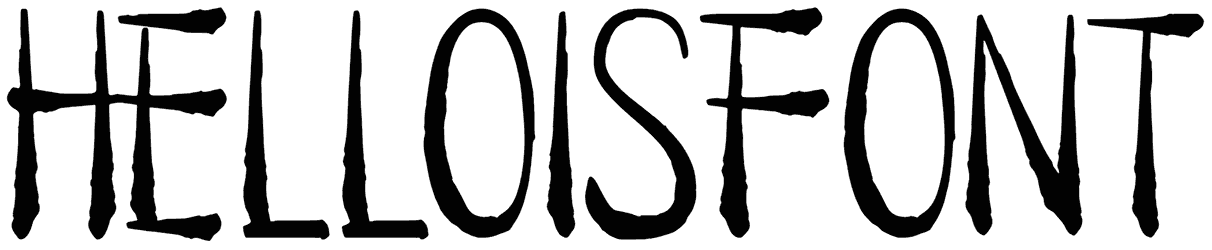
Helloisfont
Designed byRhidtype
Helloisfont font gives a cool and edgy look to your texts and has a kind of look that just you can’t pass without doing a double-take. This evil font has long characters that have been styled in a way to start thin and end in a slightly bolder manner.
You can use it to write club signs, informal headlines, mystery puzzles, horror and western movie titles, and school event banners. The font resembles both a paint-brush style and a ballpoint one.